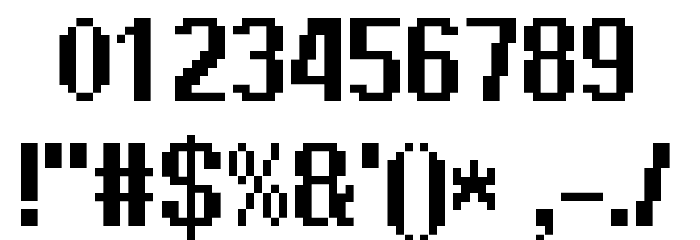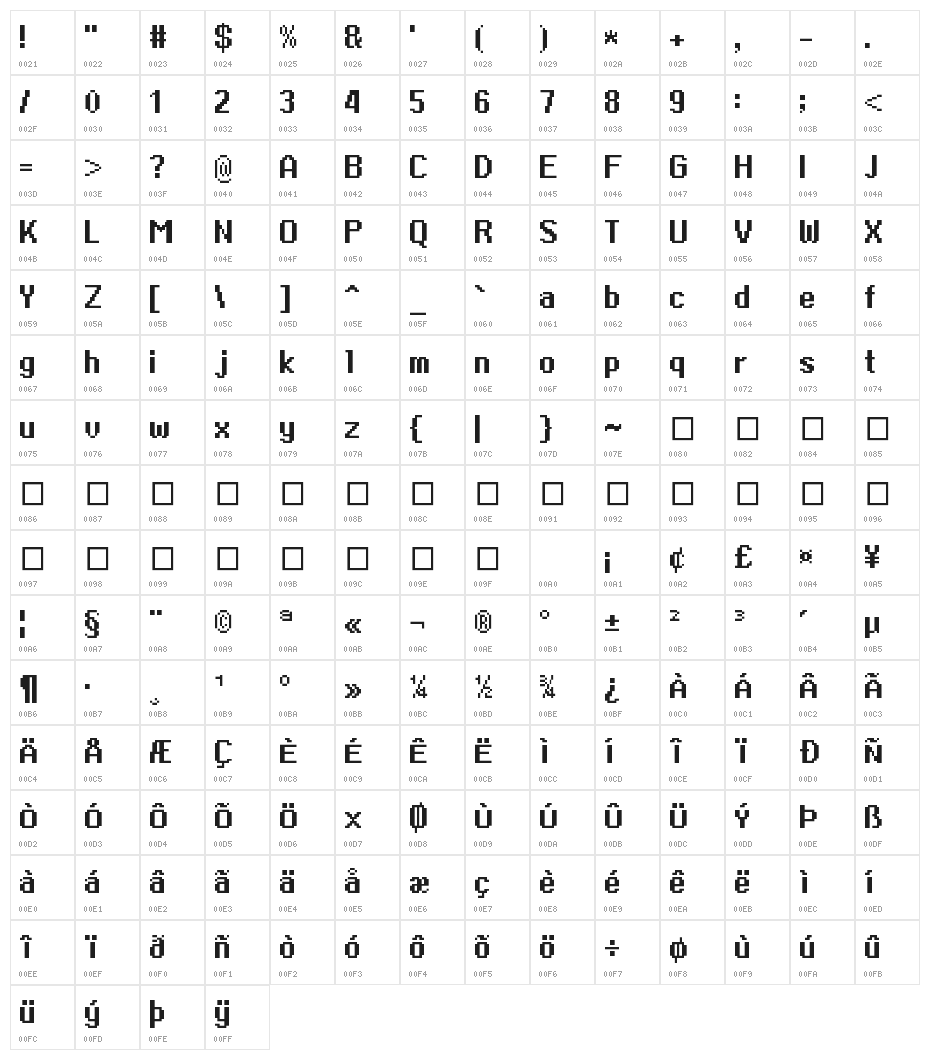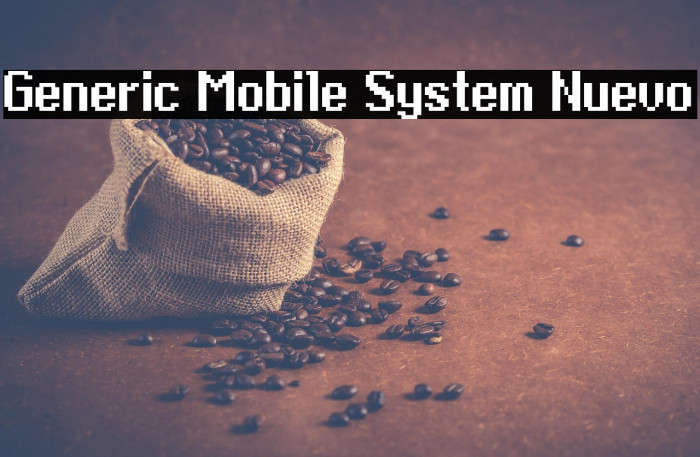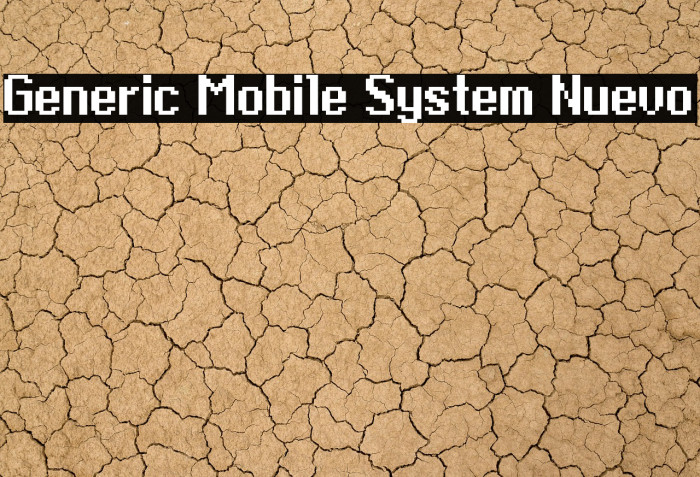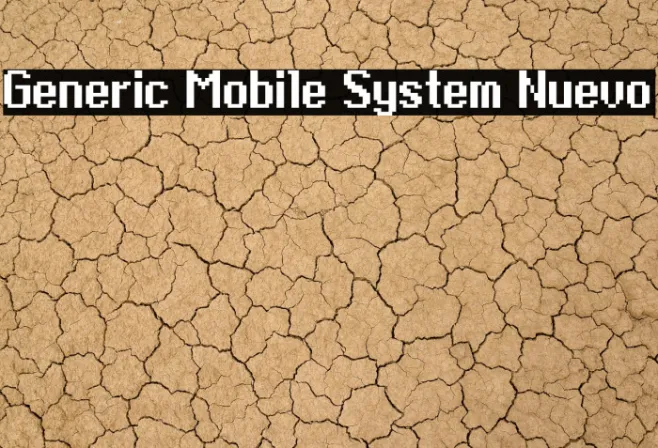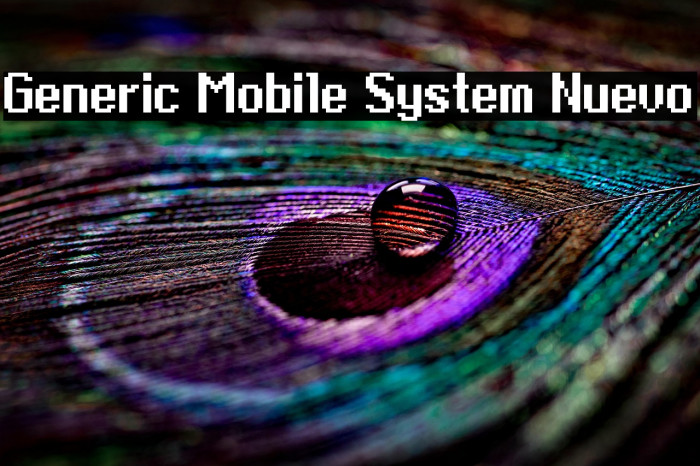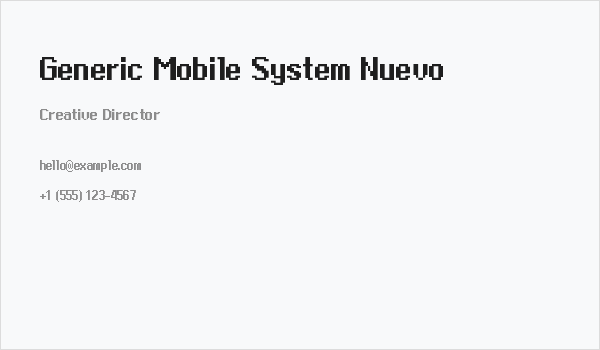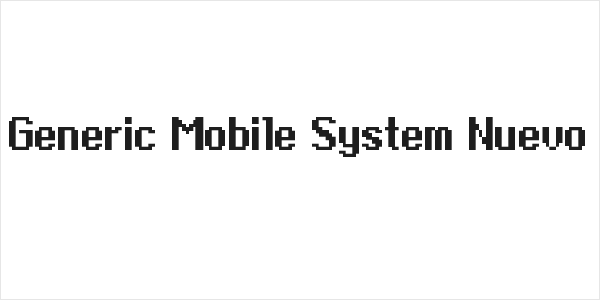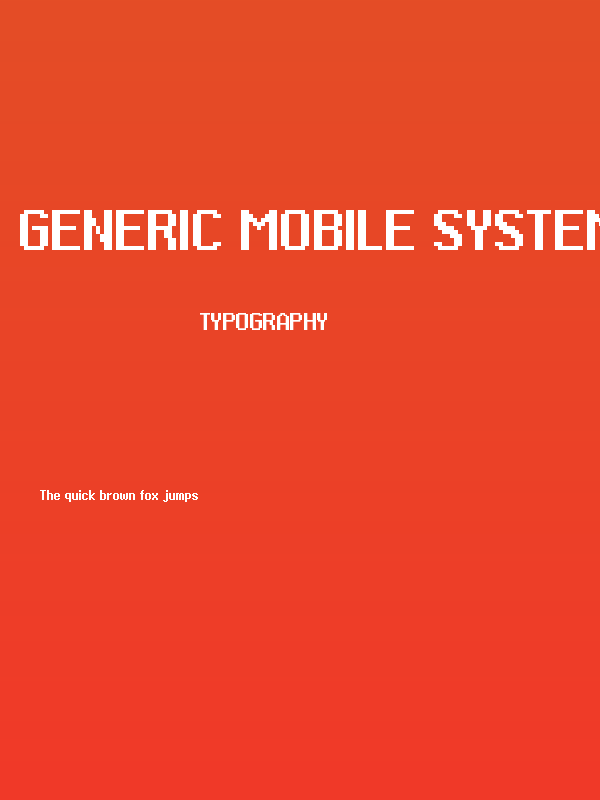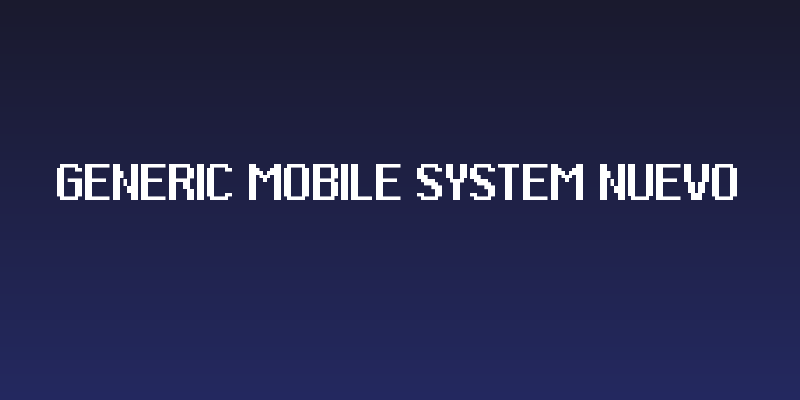
Generic Mobile System Nuevo Font
Generic Mobile System Nuevo Description
This font features a pixelated, blocky design reminiscent of early digital displays and retro video games. Each character is constructed with a grid-like precision, giving it a distinctly digital and geometric appearance. The uppercase and lowercase letters maintain a uniform height, contributing to a monospaced feel, although the font is not strictly monospaced. The numerals and special characters follow the same pixelated style, ensuring consistency across all glyphs. This font's nostalgic aesthetic is perfect for projects that aim to evoke a sense of classic gaming or digital nostalgia.
| Use Case | Headlines, Logos, Digital Art |
| Proposed Projects | Ideal for video game design, retro-themed posters, digital art projects, and tech-related branding. |